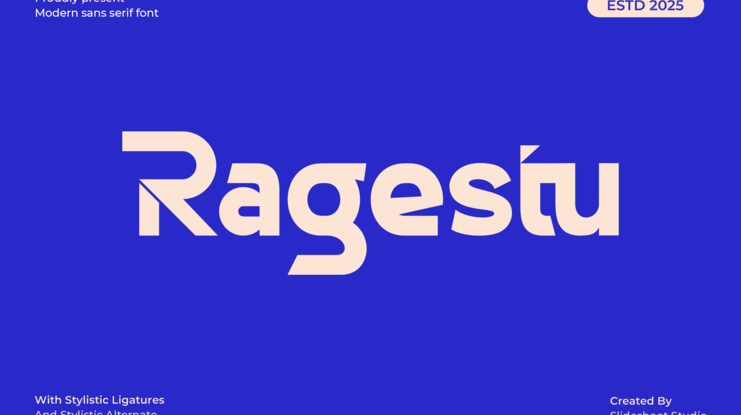
Ragestu Font
Introducing Ragestu a sans serif font with futuristic and modern feels. It will be perfectly used for Branding, Logo Design, Lettering, Logotype, Clothing, Poster, magazine, packaging, posters, shopping bags, t-shirts, book covers, photography, special events and other design project